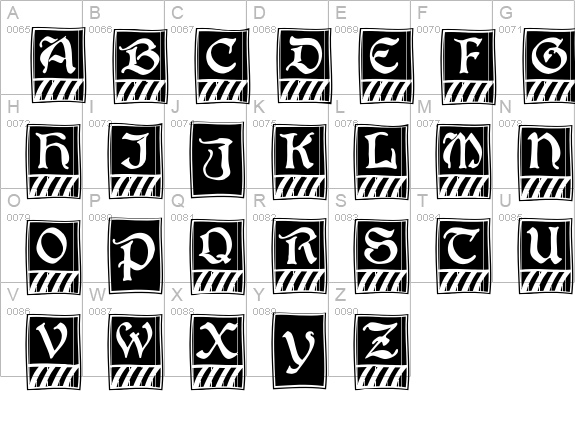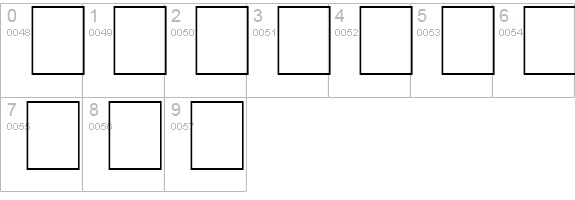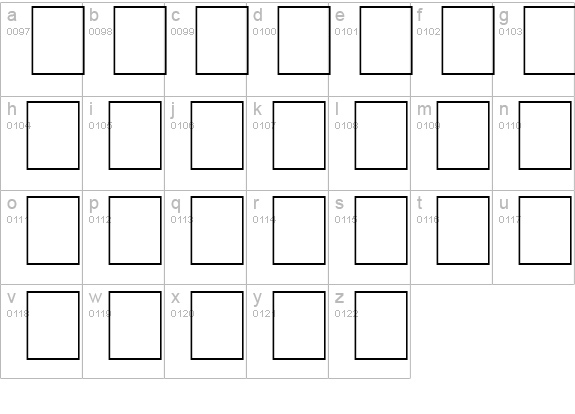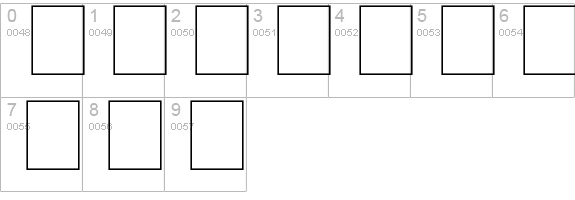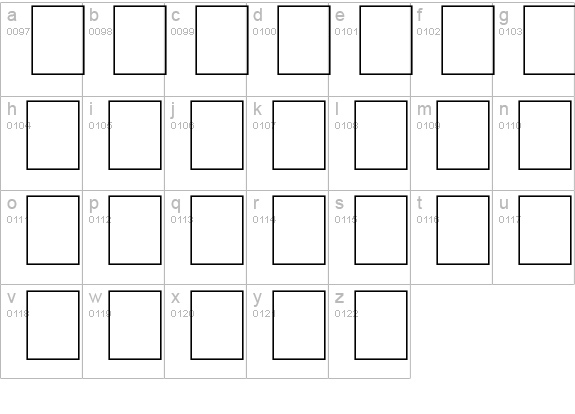
BoisterCapitals font is a versatile and eye-catching display typeface that exudes a bold and confident aesthetic. Its captivating design features strong, uppercase letters with a distinct boisterous flair, making it perfect for headlines, posters, logos, and any design project that demands attention. The font's unique character adds a touch of personality and charm to any text, setting it apart from the ordinary. What makes BoisterCapitals font even more appealing is that it is available for free! Yes, you read that right - this striking font can be downloaded at no cost from FontsMarket.com. Whether you are a designer looking to add a fresh element to your creations or a creative enthusiast seeking a standout typeface for your projects, BoisterCapitals font is a fantastic choice that won't break the bank. Download it today and let your designs speak volumes with this captivating and dynamic font.